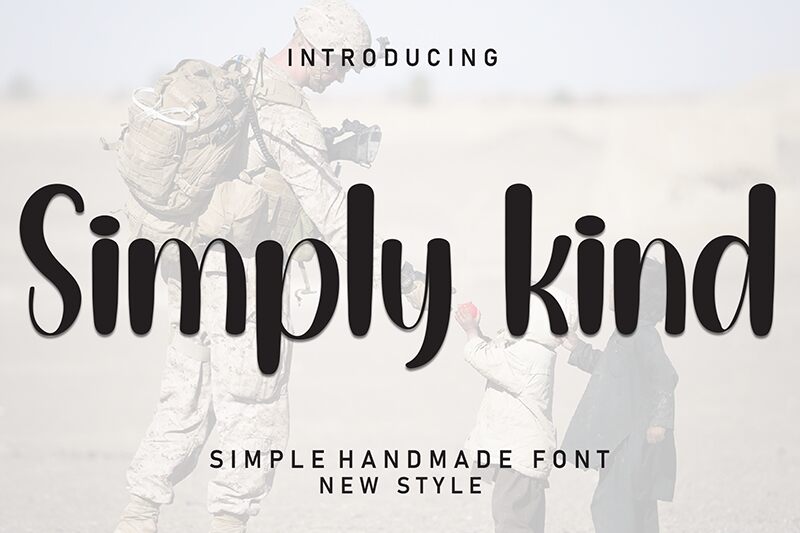
Simply Kind
Simply Kind font by Andi Moz is a free brush font that boasts stylized flair, harmonious flow, and a friendly aesthetic. Casual yet refined, the condensed font shows smooth letterform transitions and connections which contribute to its uniquely pleasant and harmonized text view.
Use the typeface to bring friendly vibes into coffee shops, menus, book covers, invitations, greeting cards, new products promo banners, Instagram posts, quote posters or any other design supports.